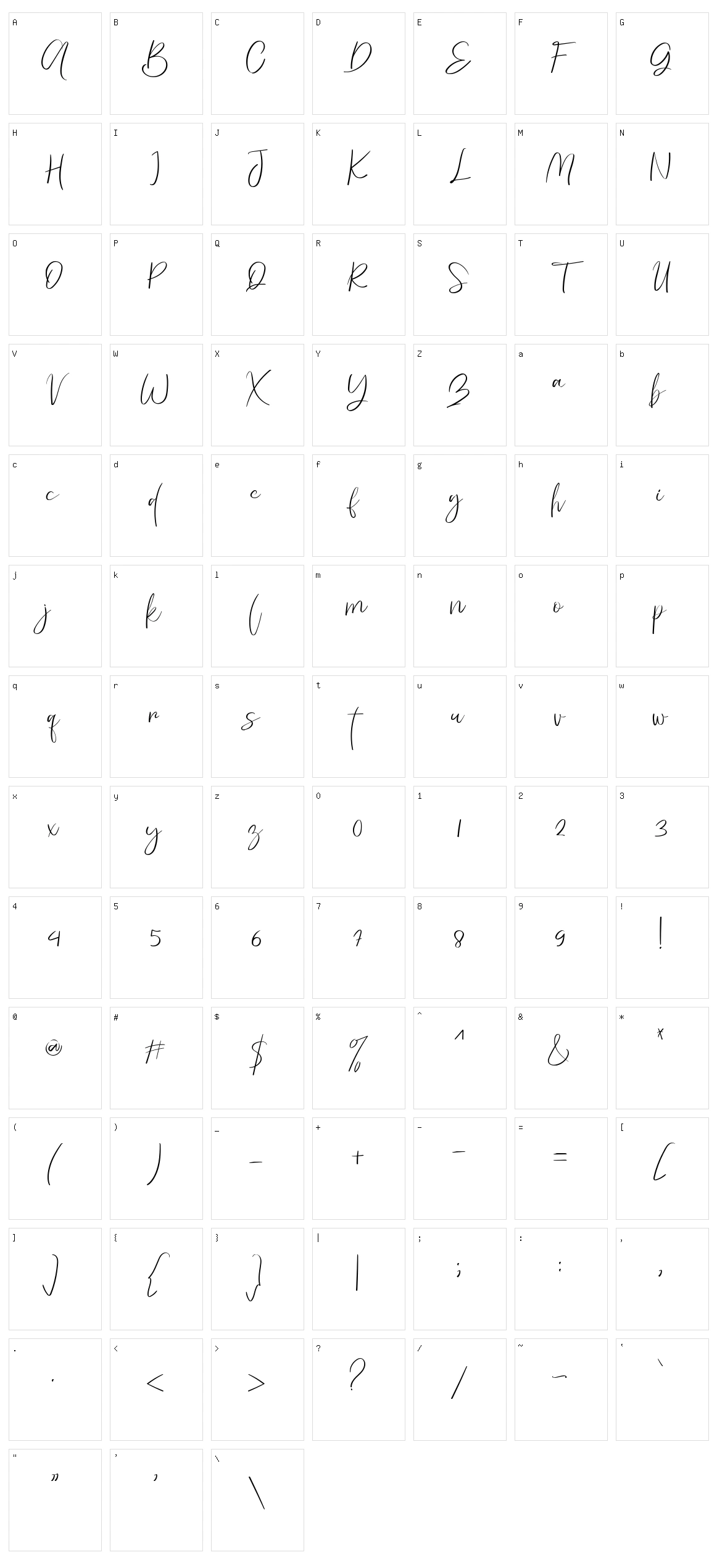
The free font Scotlandis is carefully designed by AminMario, showcasing a thoughtful balance of creativity and usability and falls under the Script font style. When you download the ZIP file, it contains only 51.3 KB of font files, making it lightweight and quick to download. Please review the license details below to understand permitted usage and distribution rights. If license information is not available, we recommend using this font for personal projects only or contacting the author directly for commercial usage permissions.